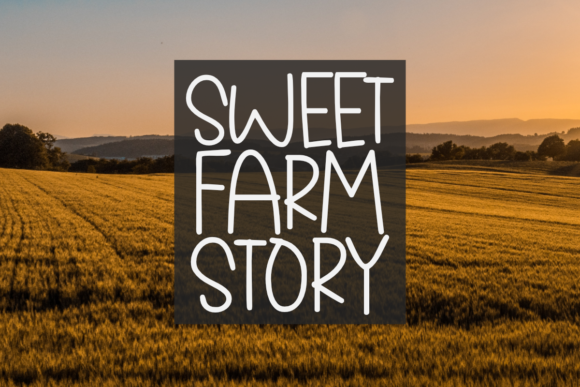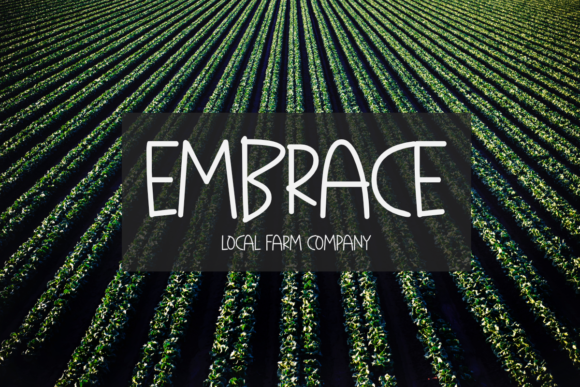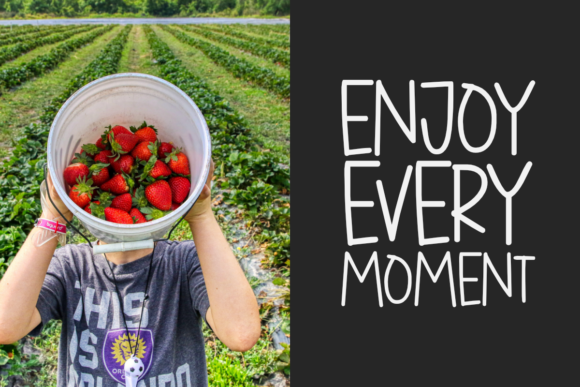
Sweet Farm Story is an informal and friendly handwritten font that can be used for all chalkboard quotes or teaching material! Its authentic look and feel will add a personal and realistic feel to your designs.
Sweet Farm Story Font